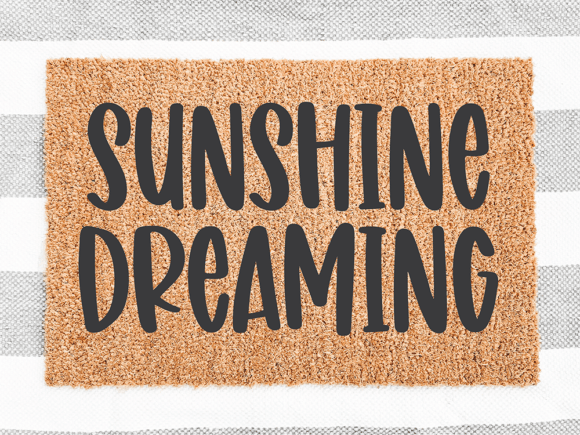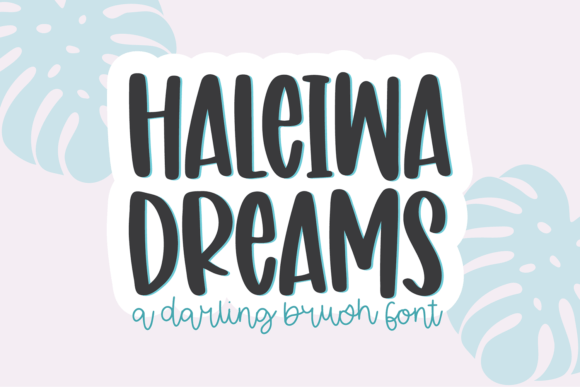
Introduction to Haleiwa Dreams Font
β€œHaleiwa Dreams” casual handwritten brush font.
This font is a whimsical brush font that is perfect for social media or crafty projects Use it for branding, crafts for decor, invitations, and more.
Why Choose Haleiwa Dreams Font?
Haleiwa Dreams Font offers exceptional quality and versatility, making it a valuable addition to your design toolkit. Whether you’re creating for personal projects or commercial use, Haleiwa Dreams Font delivers professional results.